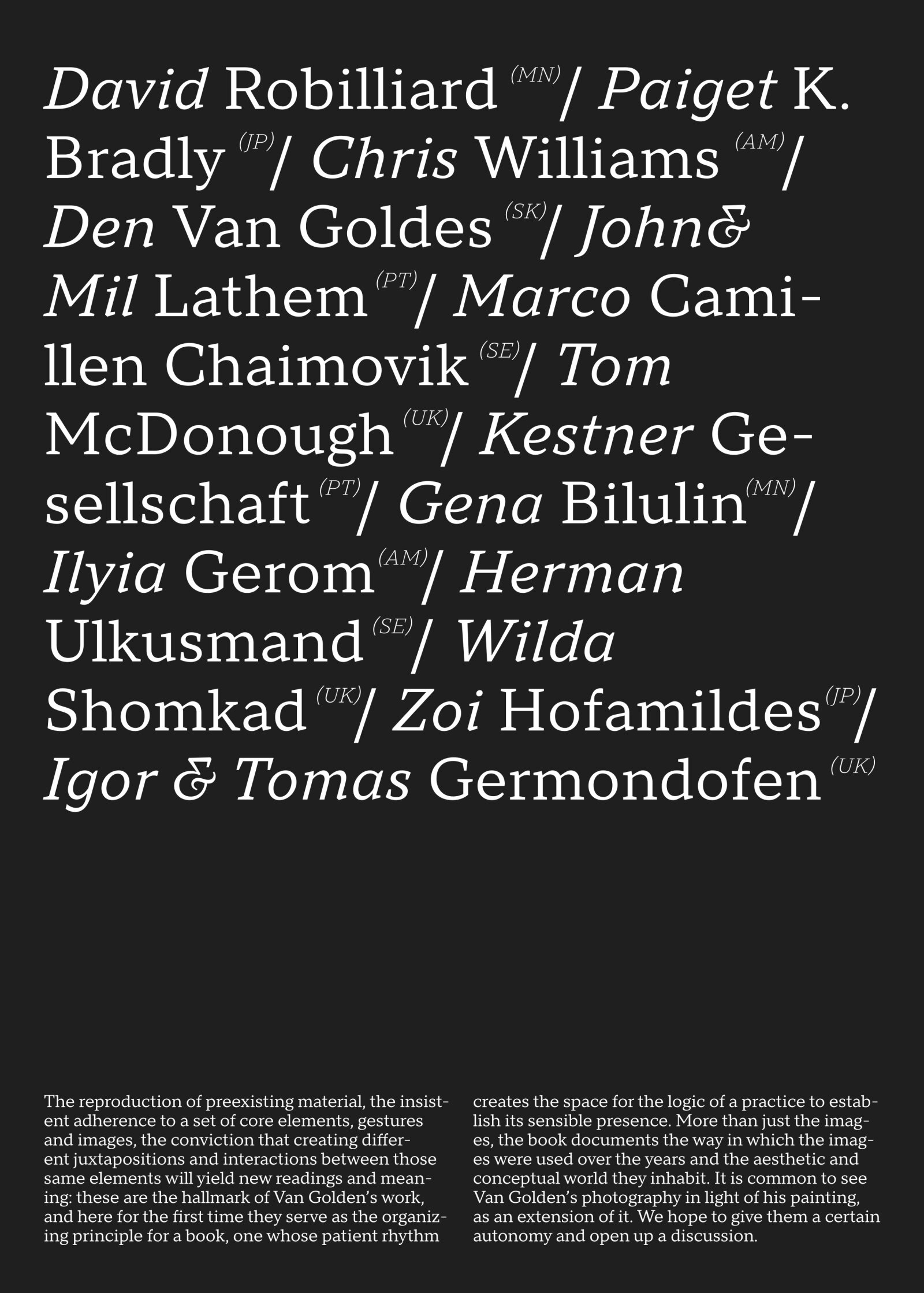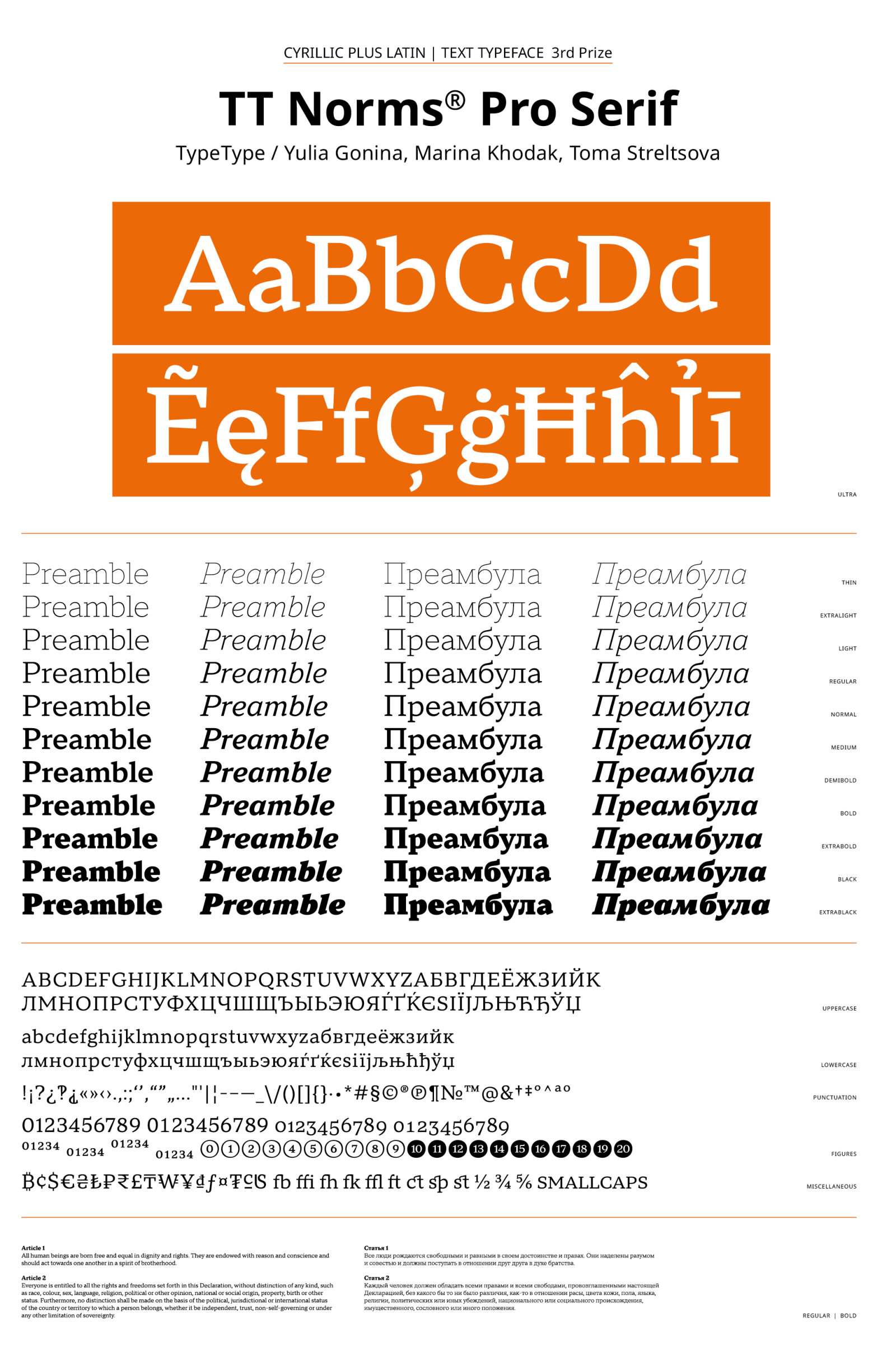
TT Norms® Pro Serif
by Yulia Gonina, Marina Khodak, Toma Streltsova
Cyrillic
B1 Text Typefaces with a latin complement
This typeface proves that a serif can be modern, advanced, and suitable for a multitude of design tasks. This serif is easy to recognize by its gentle proportion dynamics, open aperture, slanted oval axis, and low stroke contrast. Another distinctive feature of this font is brutal serifs that adjust in length according to the weight of the font. For this serif, we have designed true italics instead of simple slanted font styles. This means that the letterforms of the lowercase characters become more rounded when slanted, with the form acquiring a hand-written feel. The italics have a more intense personality than the roman font styles, so they can be used to place accents in the text. The foundation for this aesthetic and functional serif was a versatile geometric sans serif. Both typefaces collaborate perfectly and form a well- balanced font pair. Moreover, our serif easily harmonizes with other typefaces. It can take on the role of a display or text font.